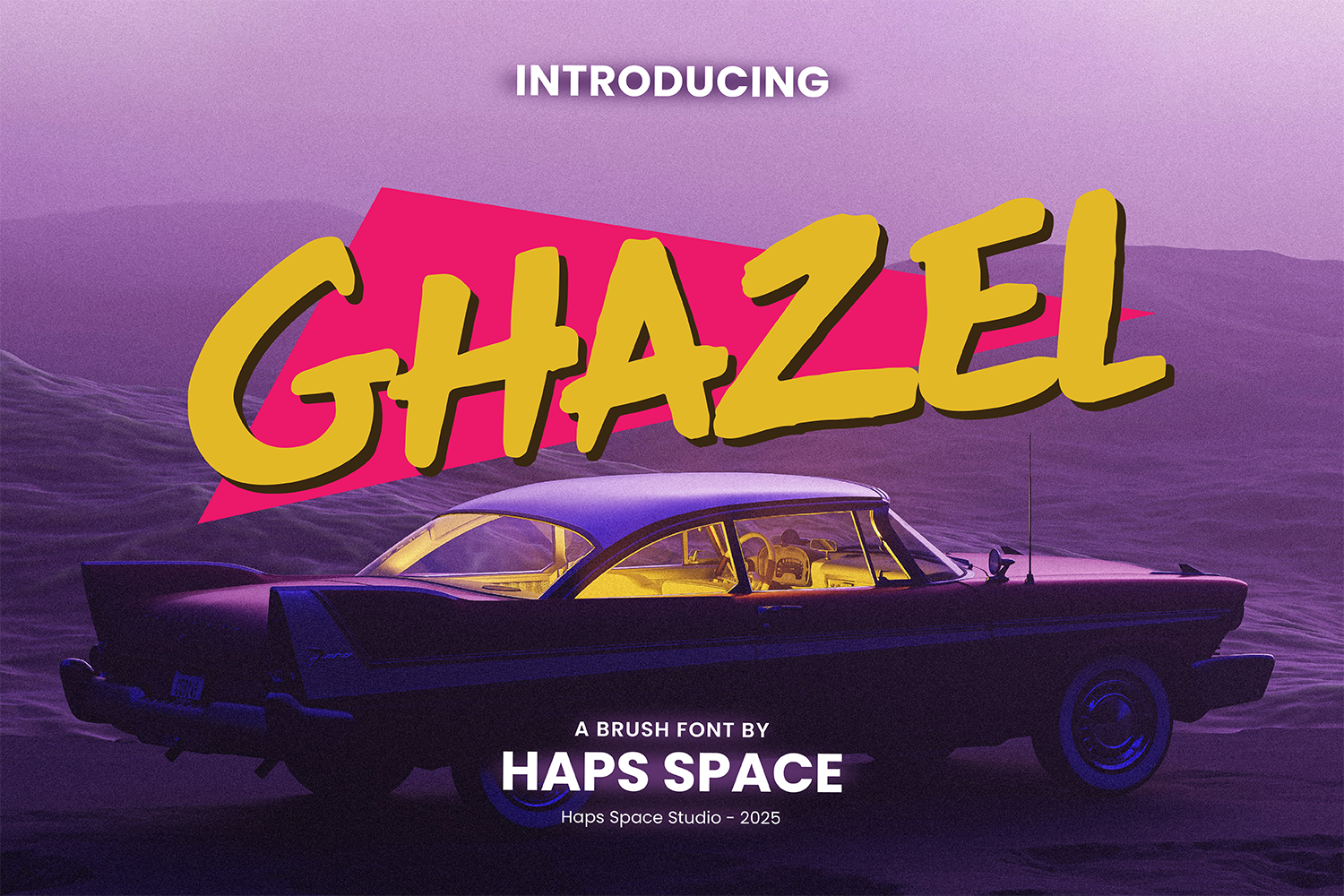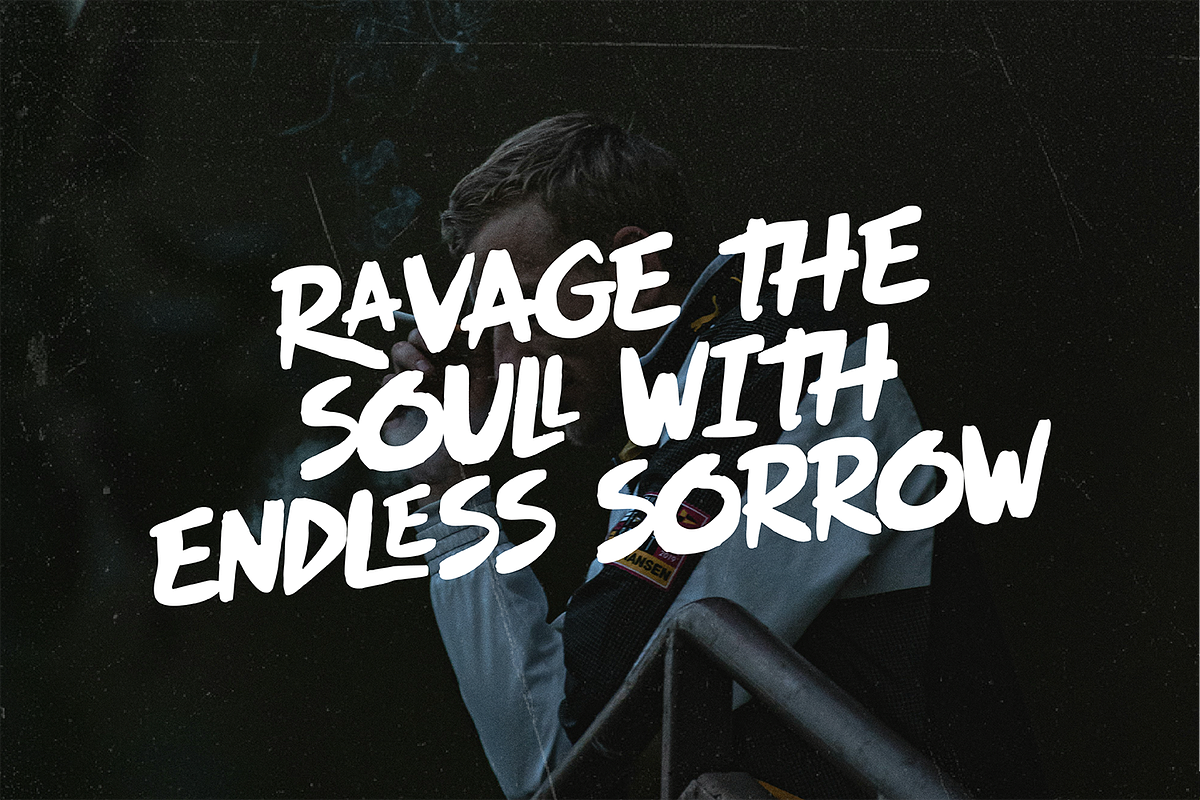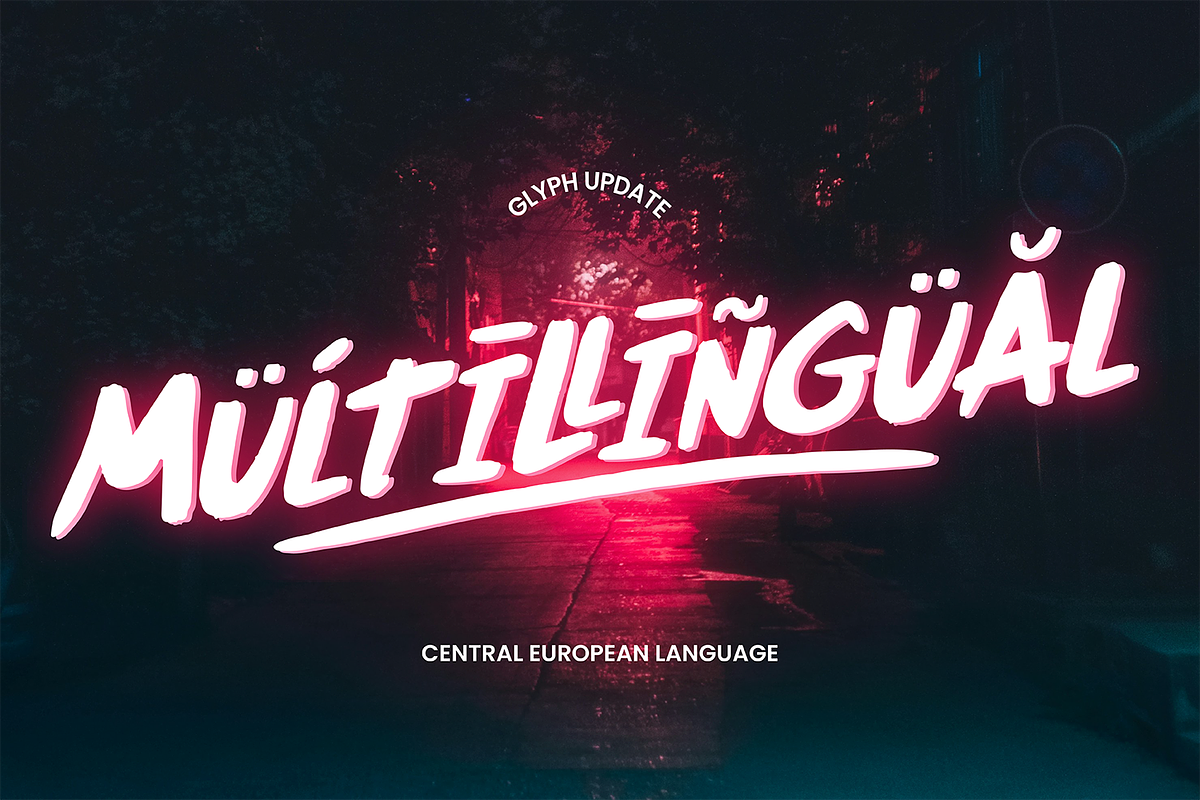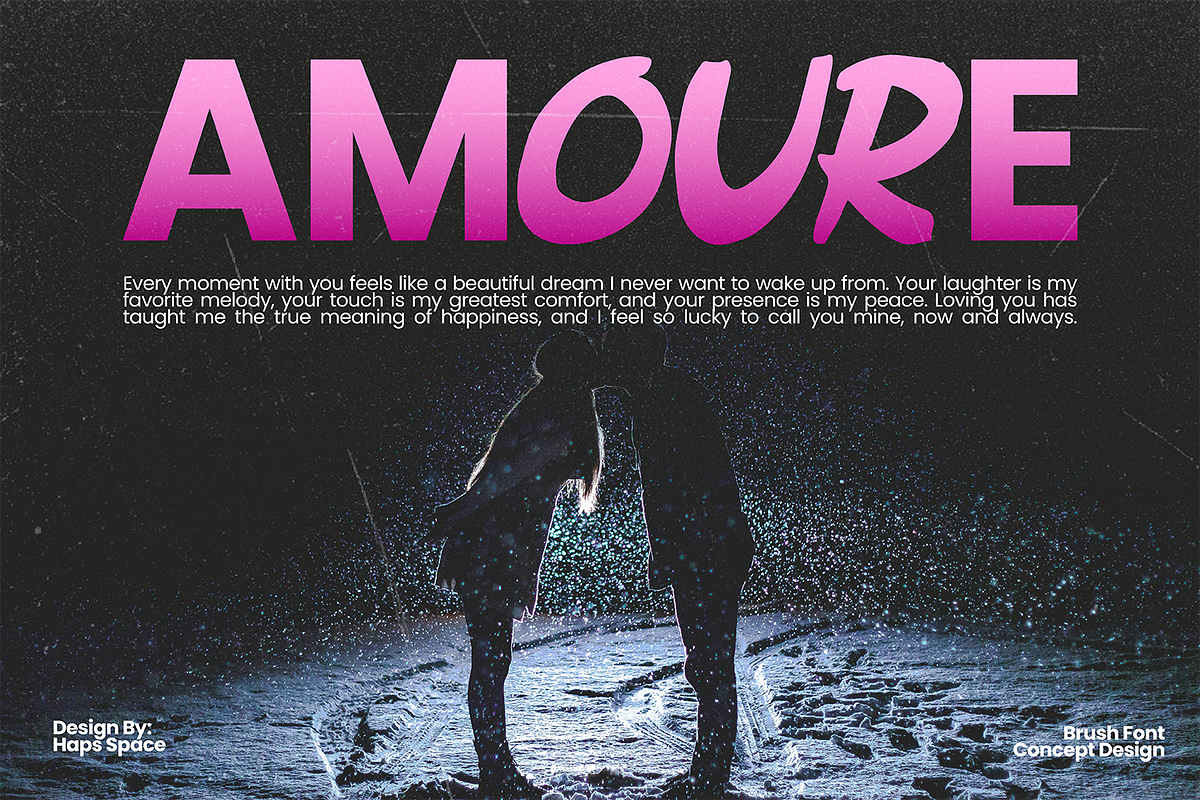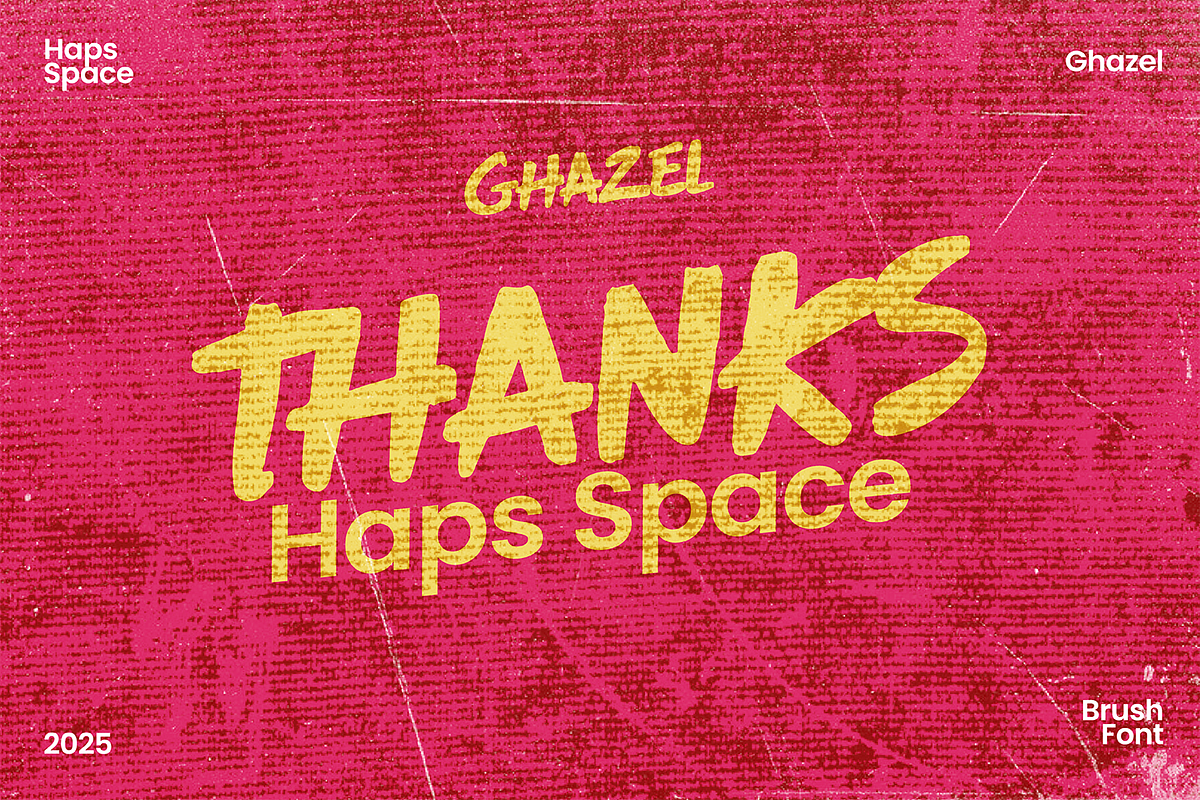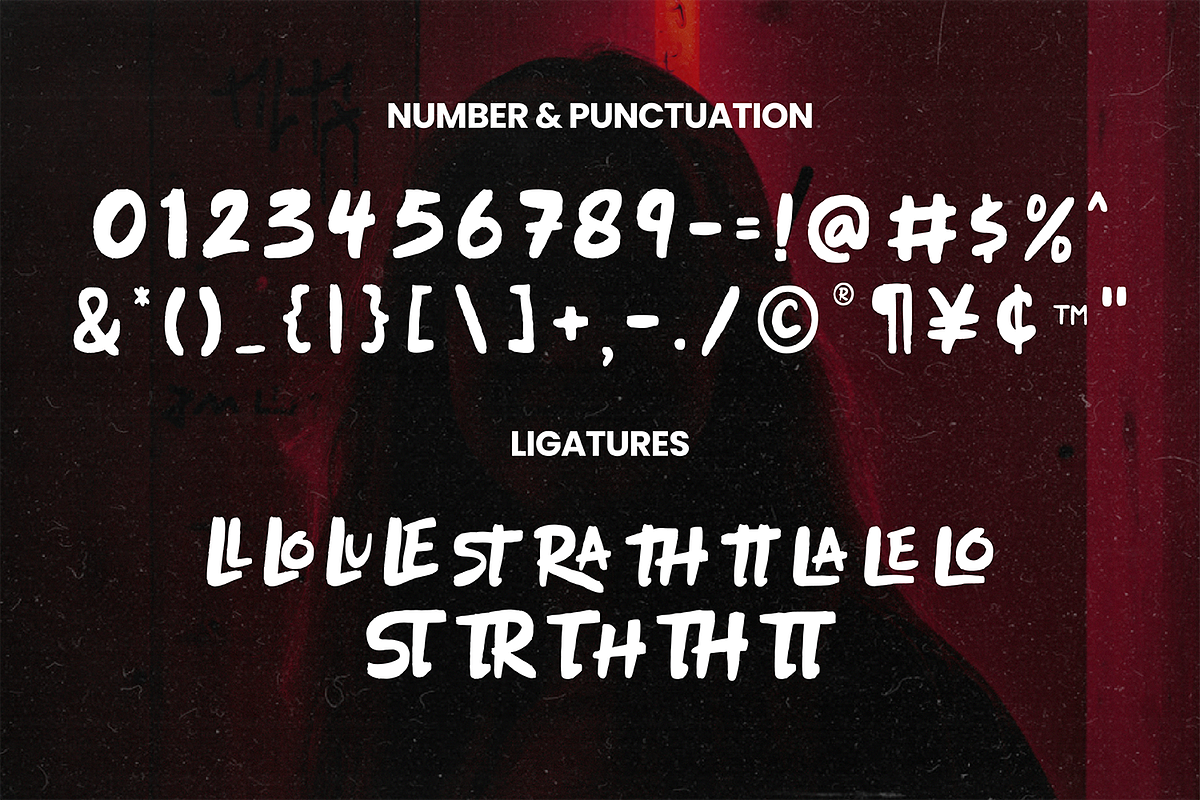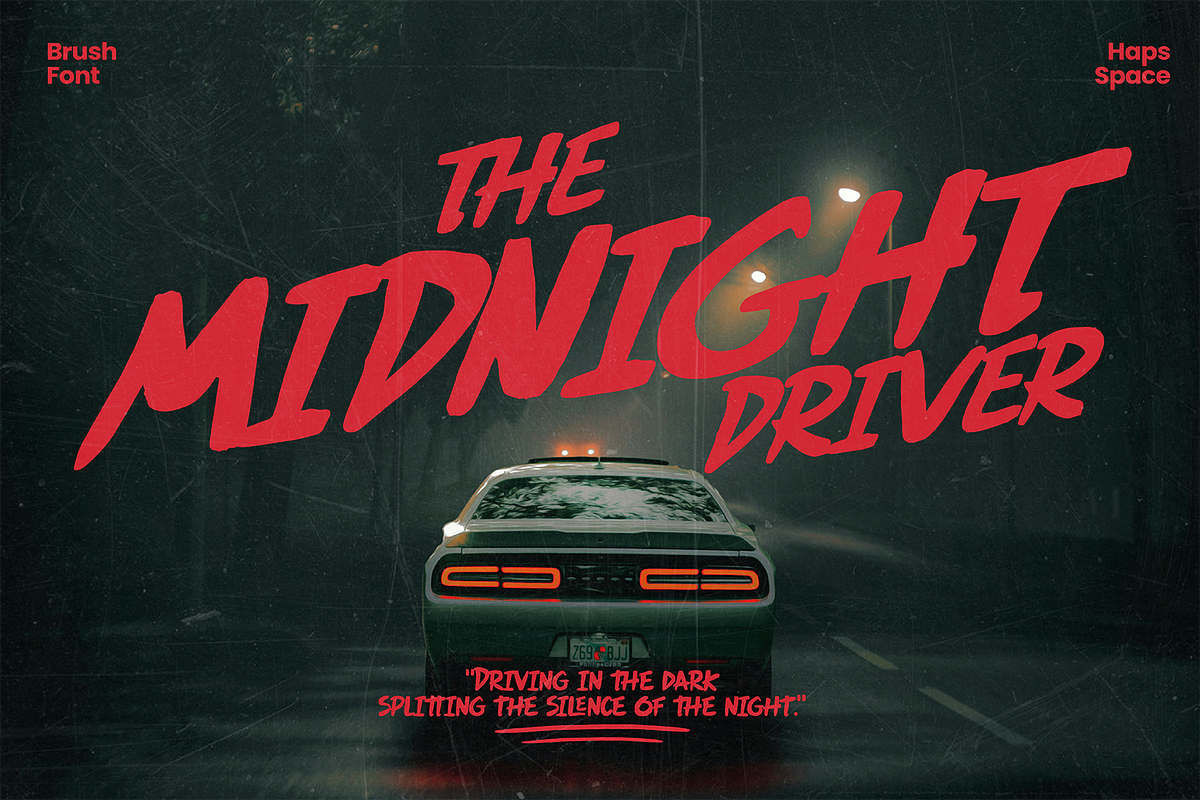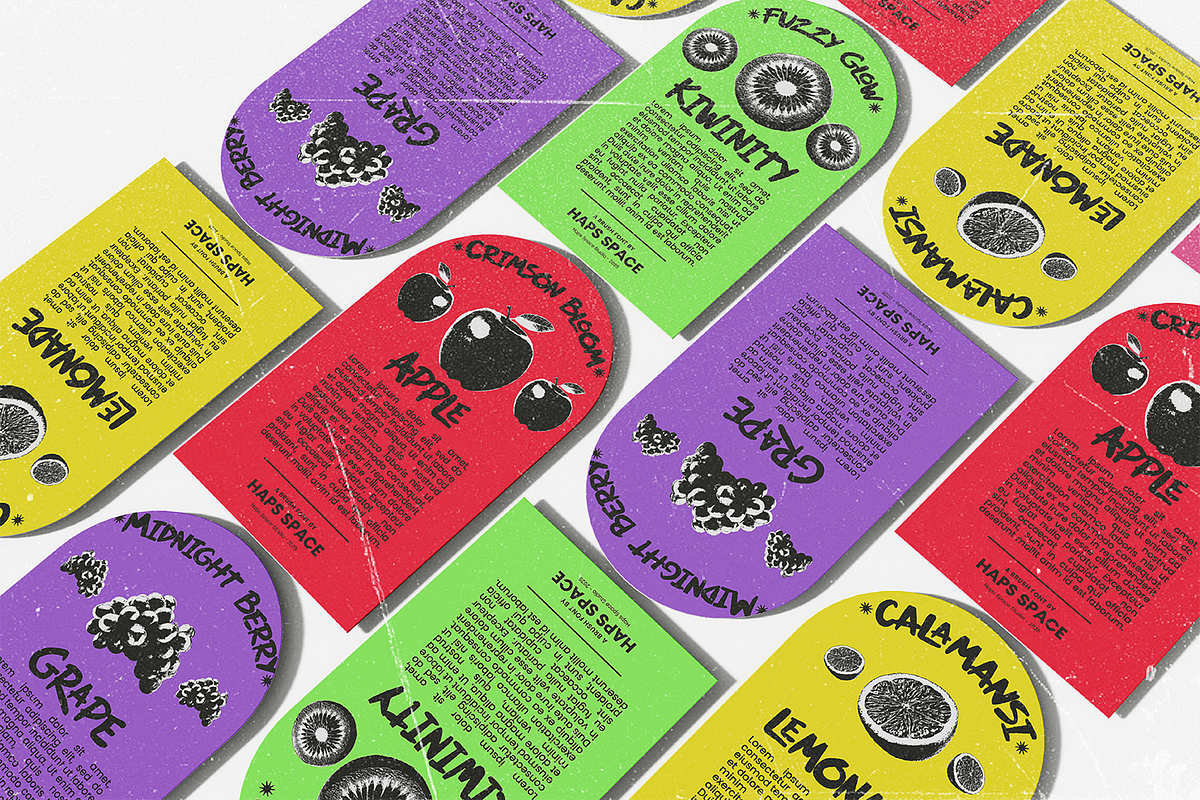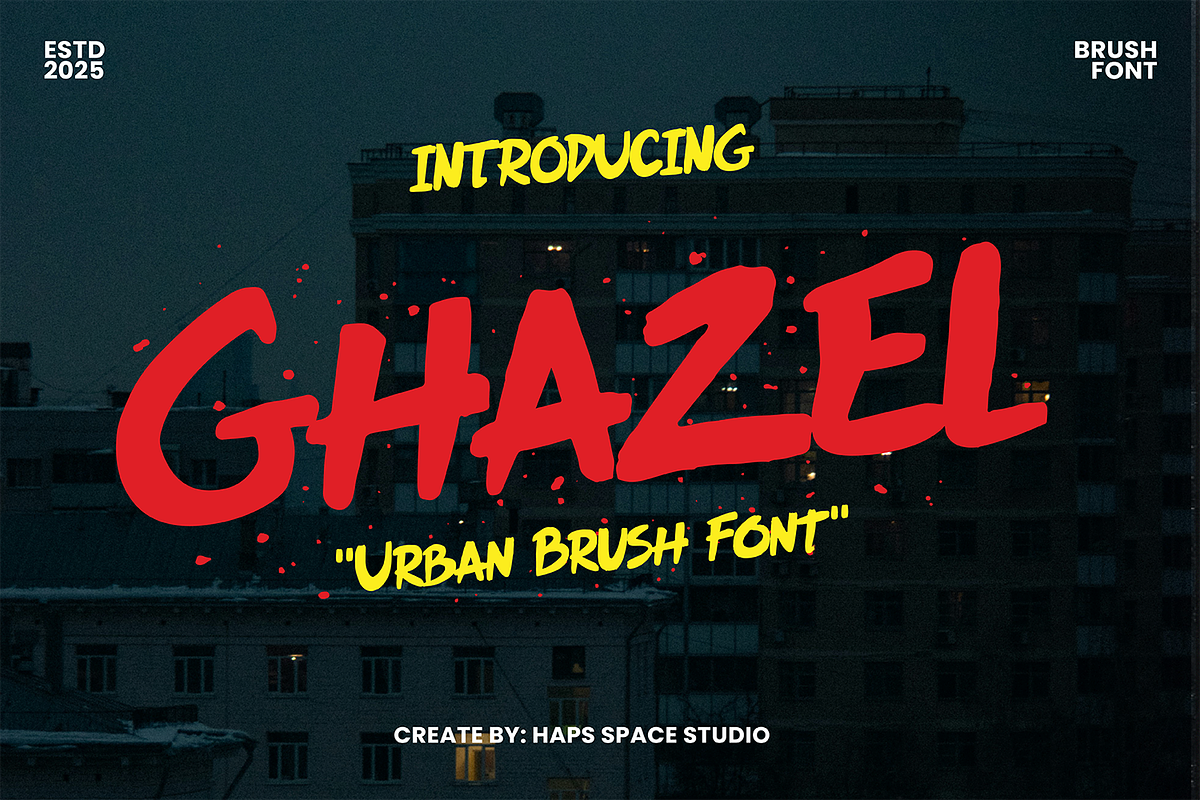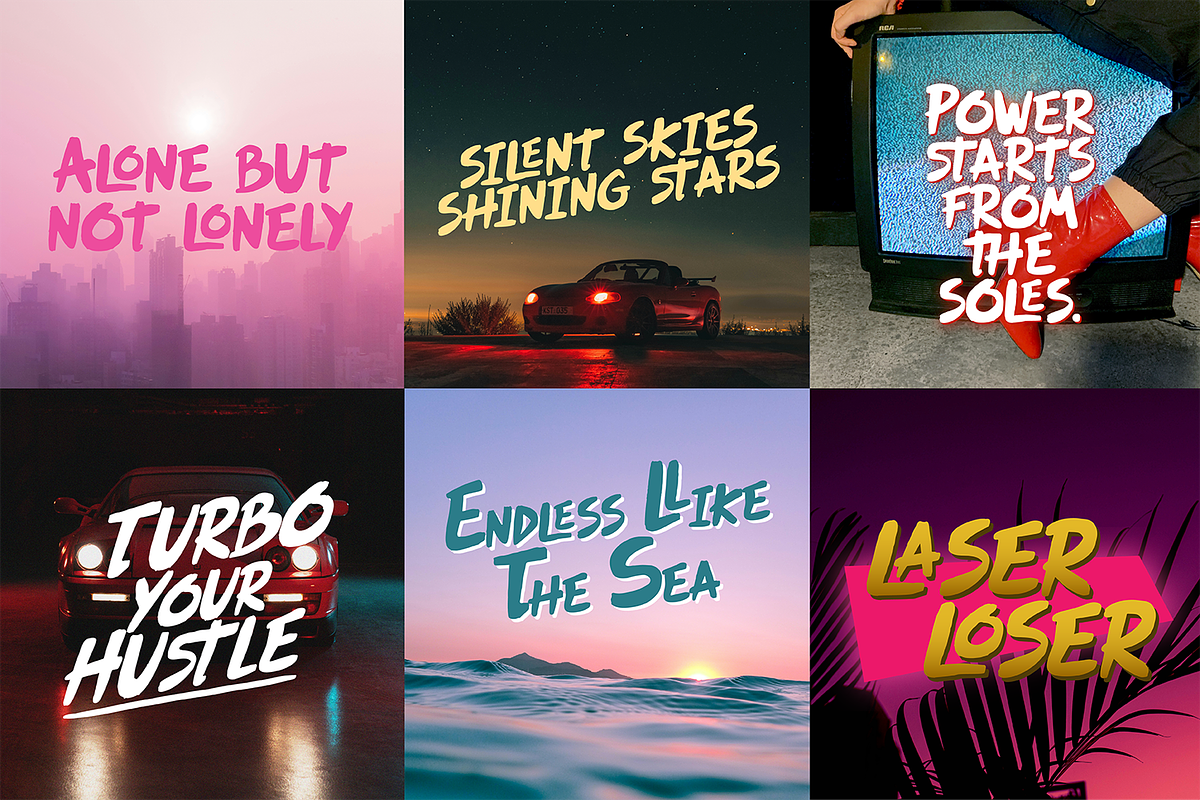
Ghazel Urban Brush Font
GHAZEL is a bold and energetic brush font with a strong urban vibe. Designed to stand out, it brings a dynamic, hand-painted look that's perfect for streetwear branding, music posters, social media graphics, album covers, and more.
With its rough brush strokes and expressive character, GHAZEL captures the essence of urban culture while maintaining excellent readability. This font is a great choice for designers looking to add a rebellious, youthful edge to their projects.
- Bold uppercase letters with natural brush texture
- Urban and street-style aesthetics
- Great for youthful, energetic design themes
- Music event posters and flyers
- Streetwear apparel design
- Social media content
- Fashion & lifestyle branding
- Book and album covers